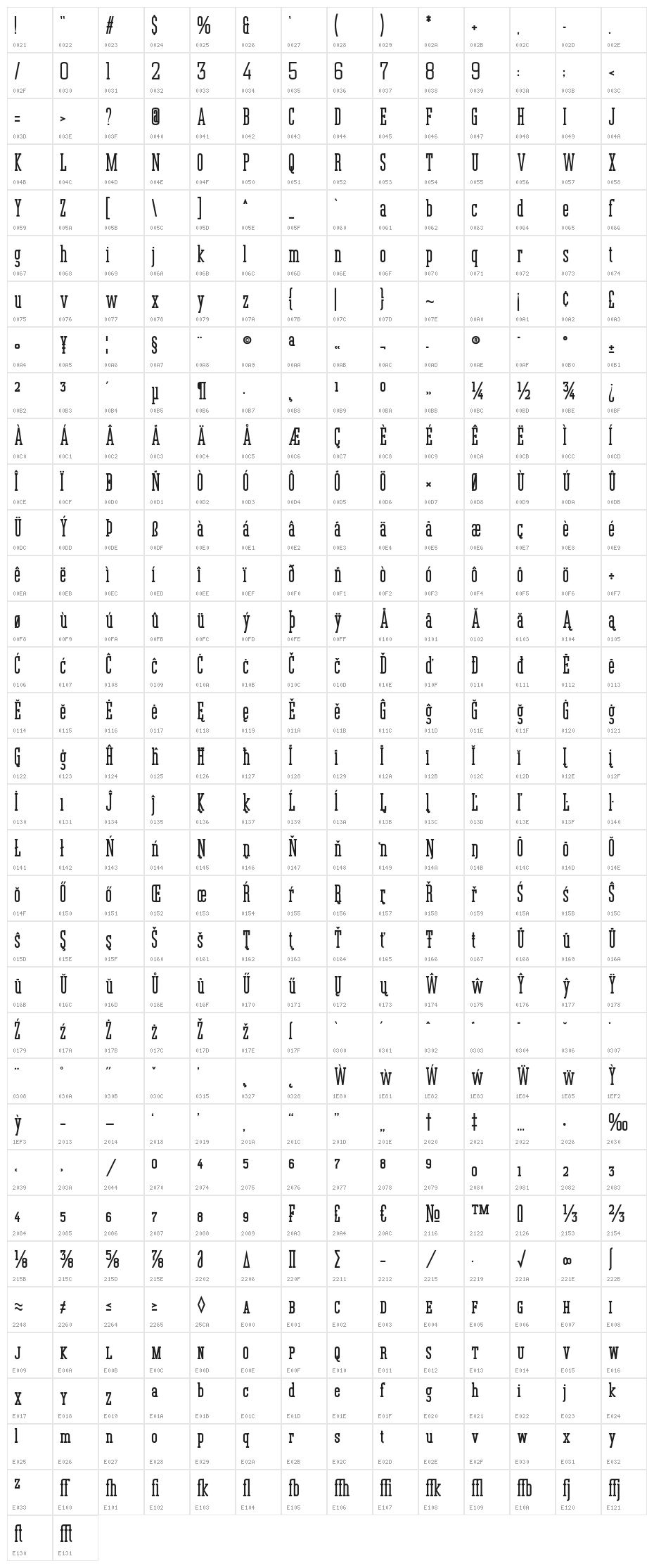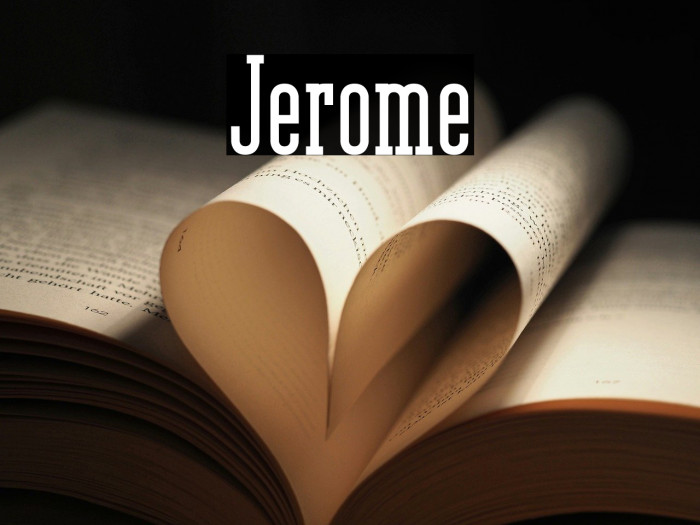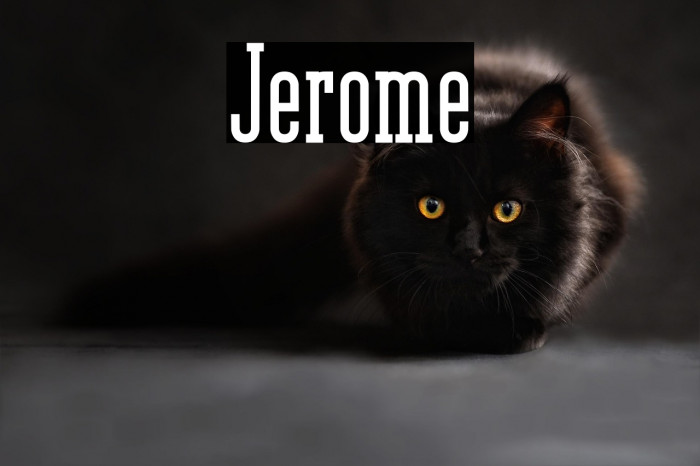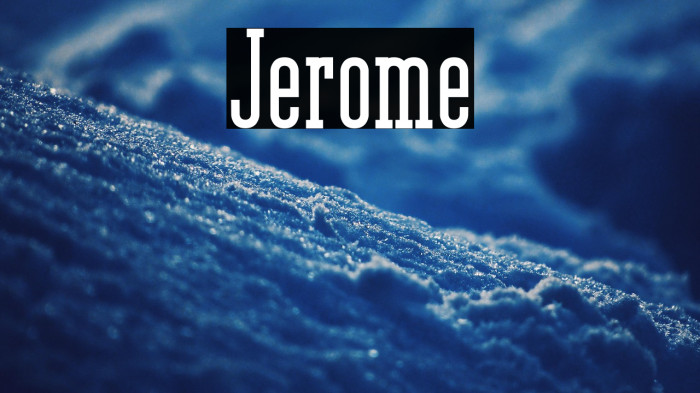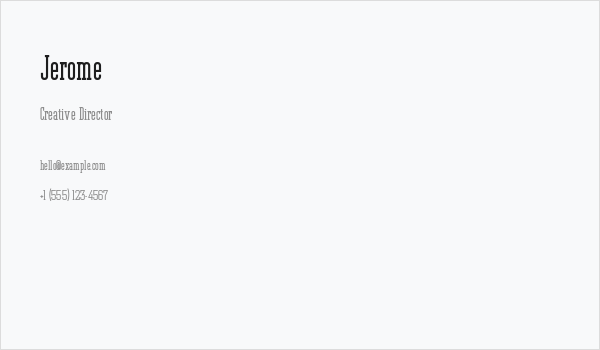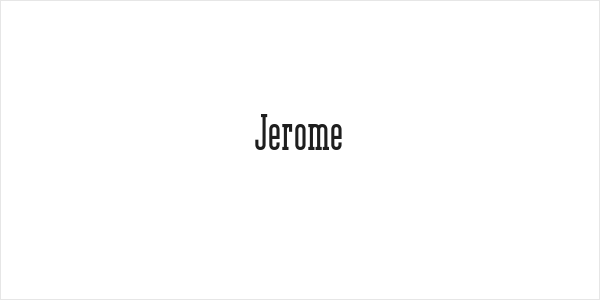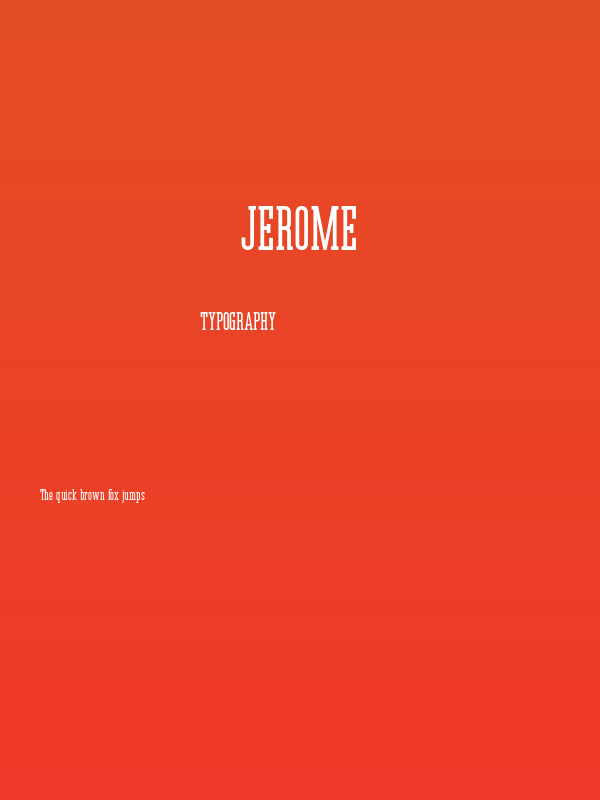
Jerome Font
Jerome Description
This font features a bold and striking design with tall, narrow characters that exude a sense of strength and authority. The uppercase letters are particularly elongated, giving them a commanding presence, while the lowercase letters maintain a consistent height that complements the overall aesthetic. The numerals are clear and distinct, ensuring readability. Special characters are well-defined, adding versatility to the font's usage. The serif style adds a touch of classic elegance, making it suitable for a variety of applications where a strong, impactful impression is desired.
| Proposed Projects | Ideal for headlines, posters, branding, and editorial design where a bold statement is needed. |